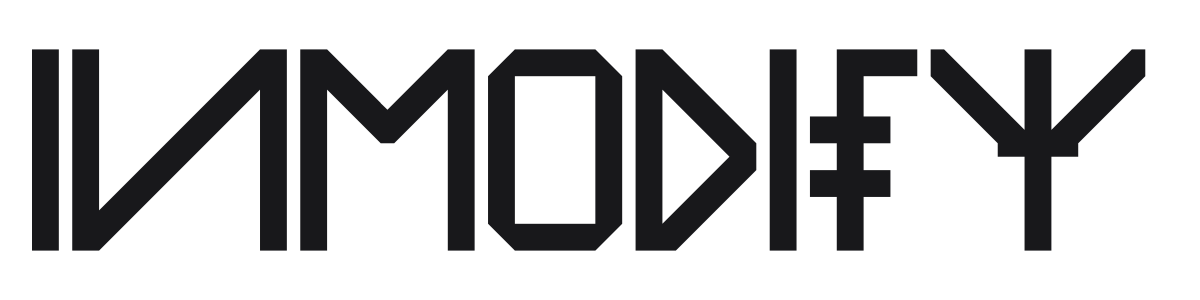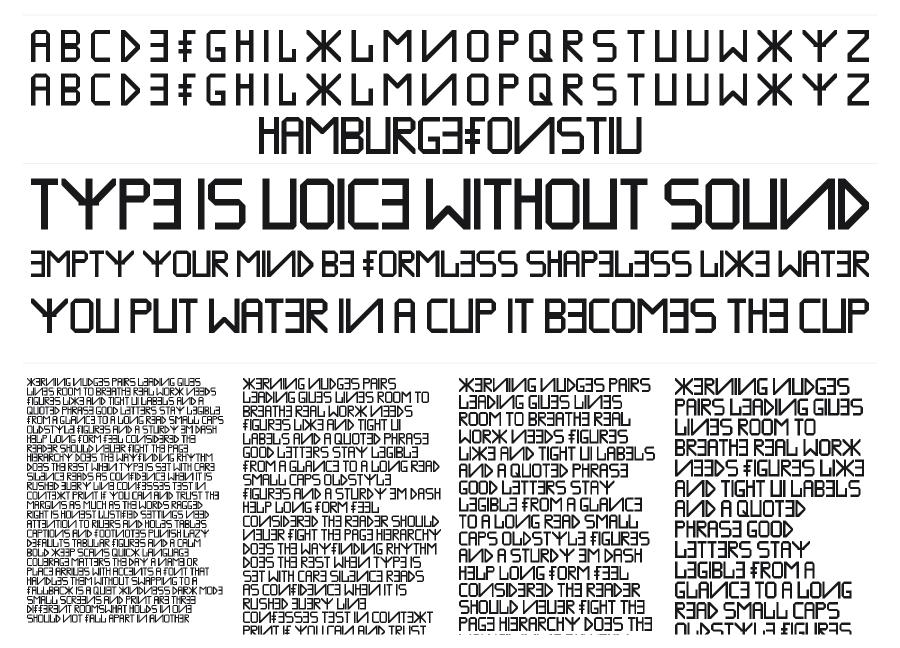
Inmodify
by Font Bureau · Website
Inmodify is a bold geometric techno face built from straight lines and angular cuts, with virtually no curves in sight. Every character is constructed on a rigid square grid, giving it a deconstructed, almost coded quality. The heaviness and sharp geometry make it a strong choice for aggressive headlines, game titles, and tech branding.